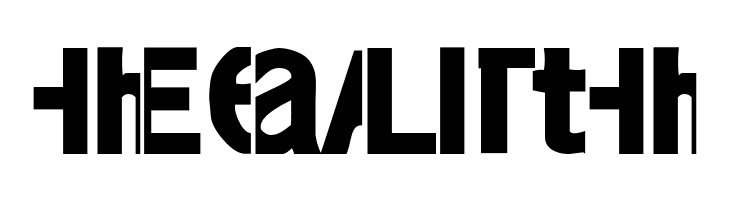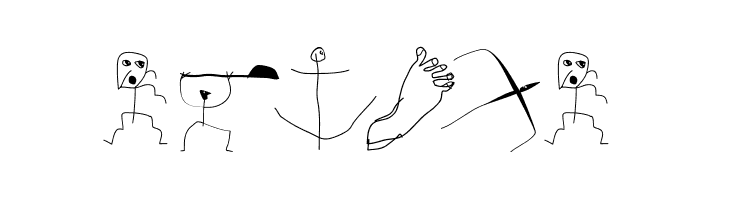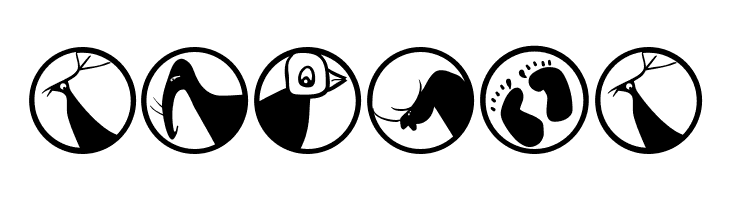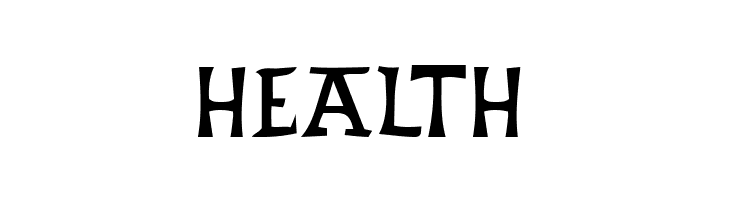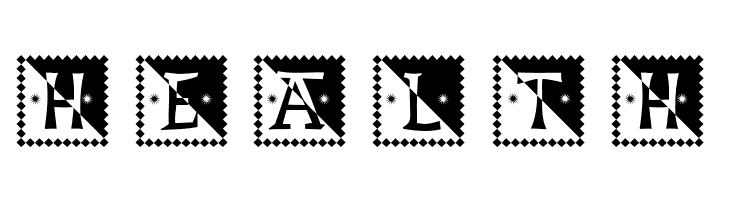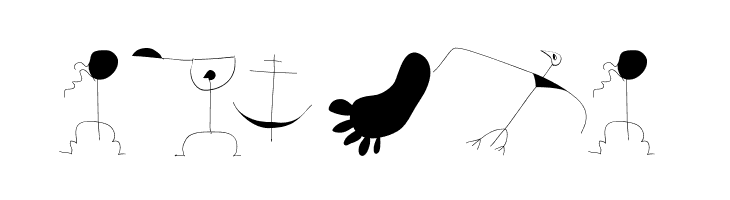
A bold, artistic font with geometric and abstract elements, ideal for creative projects.
A modern geometric font with bisected characters and clean lines.
An elegant serif font with decorative swashes and a classic style.
A sophisticated serif font with elegant swashes and classic styling.
A modern, geometric font with sharp angles and clean lines.
An elegant and flowing script font with ornate uppercase letters and consistent lowercase flow.
An ornate and whimsical decorative font with intricate swirls and curls.
A bold blackletter font with sharp, angular lines and intricate detailing.
A bold, modern font with a slightly condensed and structured appearance.
A modern, geometric font with clean lines and circular cutouts.
A futuristic, geometric font with clean lines and angular shapes.
A cursive, handwritten-style font with elegant, flowing strokes.
A bold, angular font with a dynamic, hand-drawn style.
A modern, geometric font with a double-line structure and rounded edges.
An ornate, blackletter-inspired font with bold, decorative elements.
A bold, italic script font with dynamic, flowing strokes and elegant swashes.
A bold, expressive script font with a dynamic and artistic style.
An elegant, decorative script font with intricate swirls and flourishes.
An elegant script font with intricate swashes and flourishes.
An elegant, decorative script font with thin, flowing lines and intricate swirls.
An elegant, flowing script font with smooth, cursive letterforms.
A cursive font with elegant, flowing uppercase letters and casual, handwritten lowercase letters.
A thin, elegant script font with flowing, graceful curves.